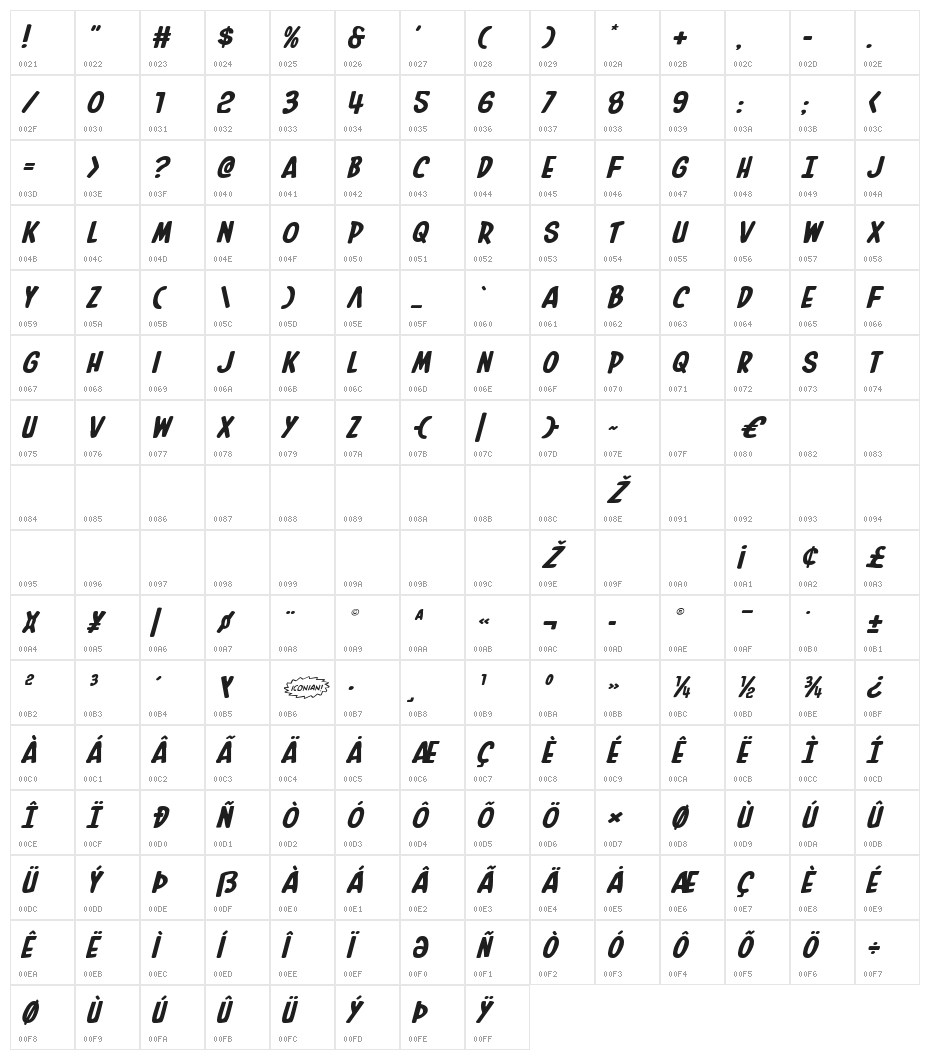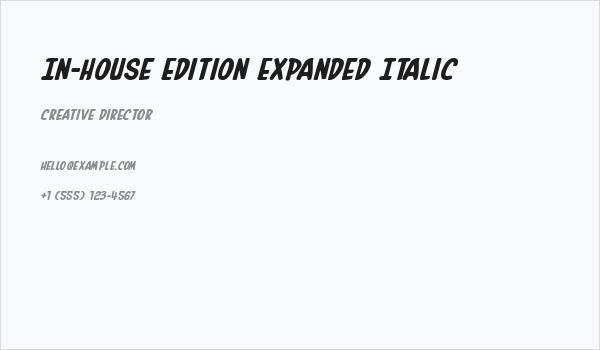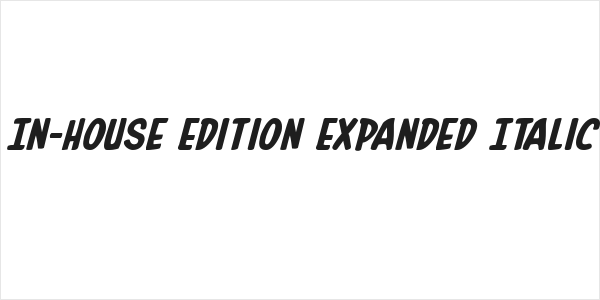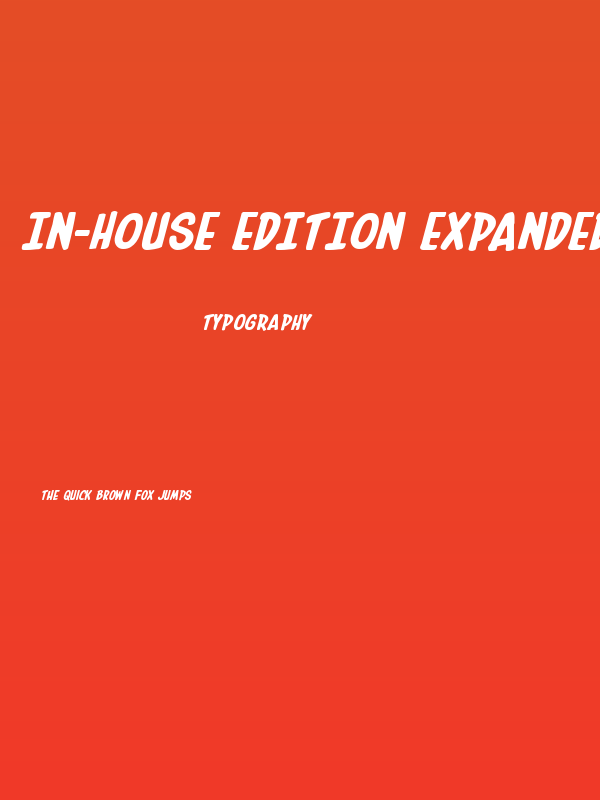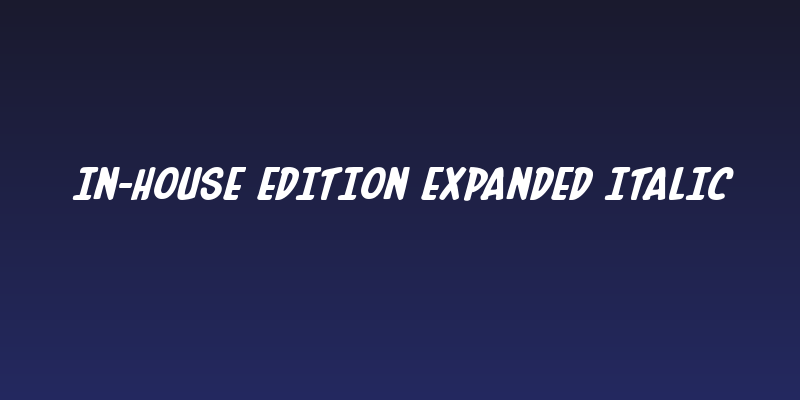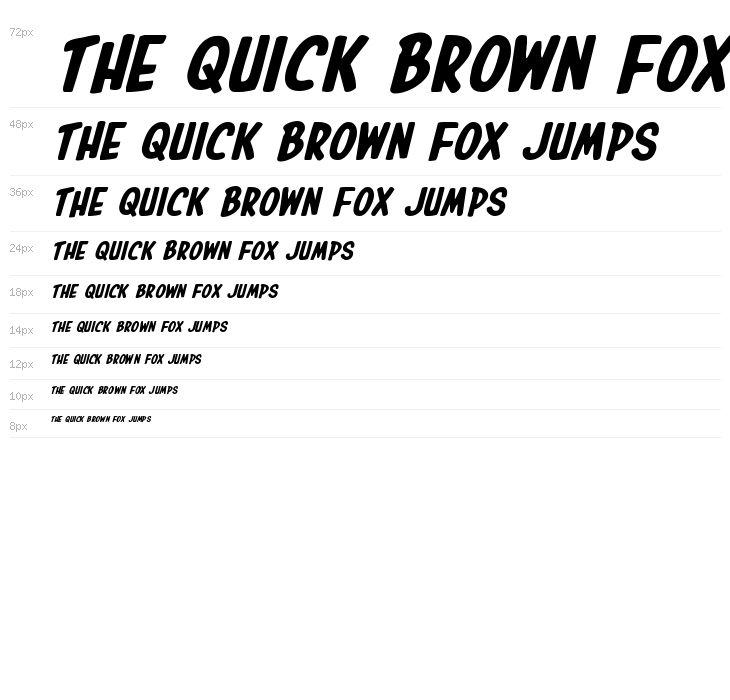
In-House Edition Expanded Italic Font
In-House Edition Expanded Italic Description
This font features a bold and dynamic style with an italic slant, giving it a sense of movement and energy. The characters are expanded, providing a wide and open appearance that enhances readability. The strokes are thick and consistent, contributing to a strong visual impact. The font maintains a playful yet assertive tone, making it suitable for attention-grabbing designs. The uppercase and lowercase letters are well-balanced, and the numbers and special characters are clearly defined, ensuring versatility across various applications.
| Proposed Projects | Ideal for branding, headlines, posters, and any design that requires a bold and impactful statement. |